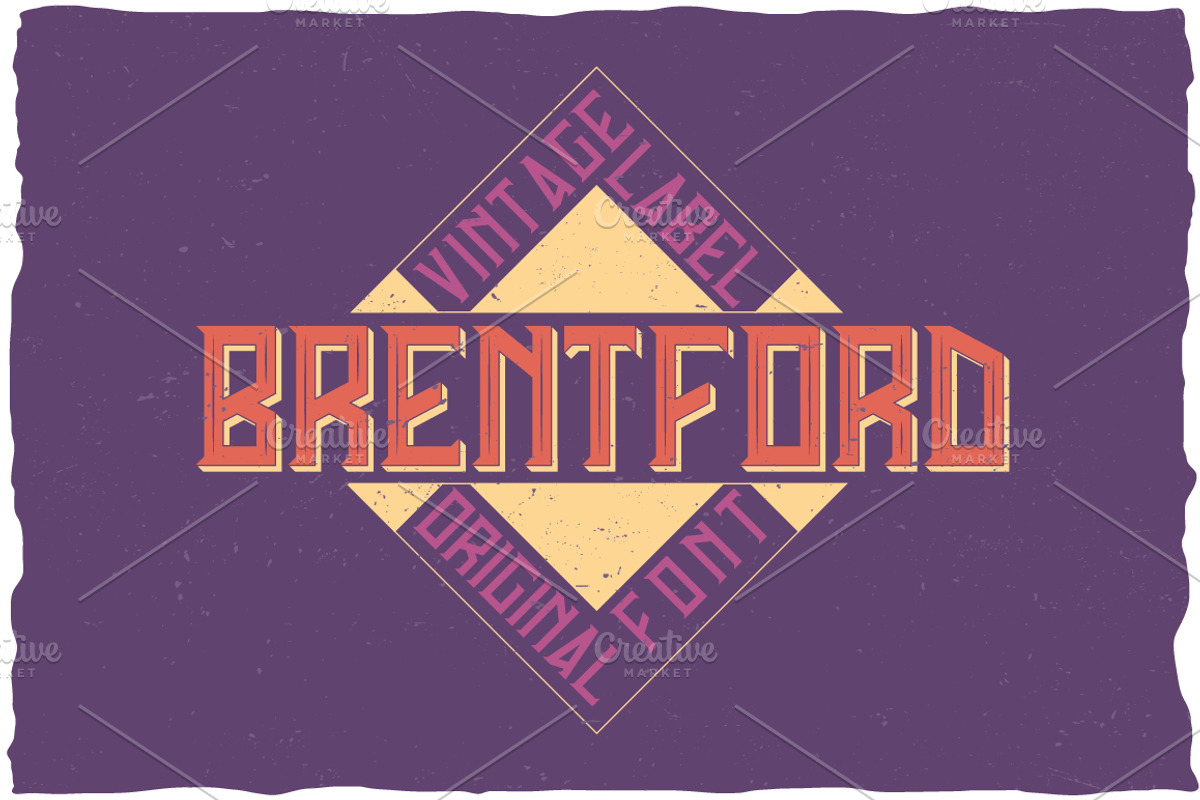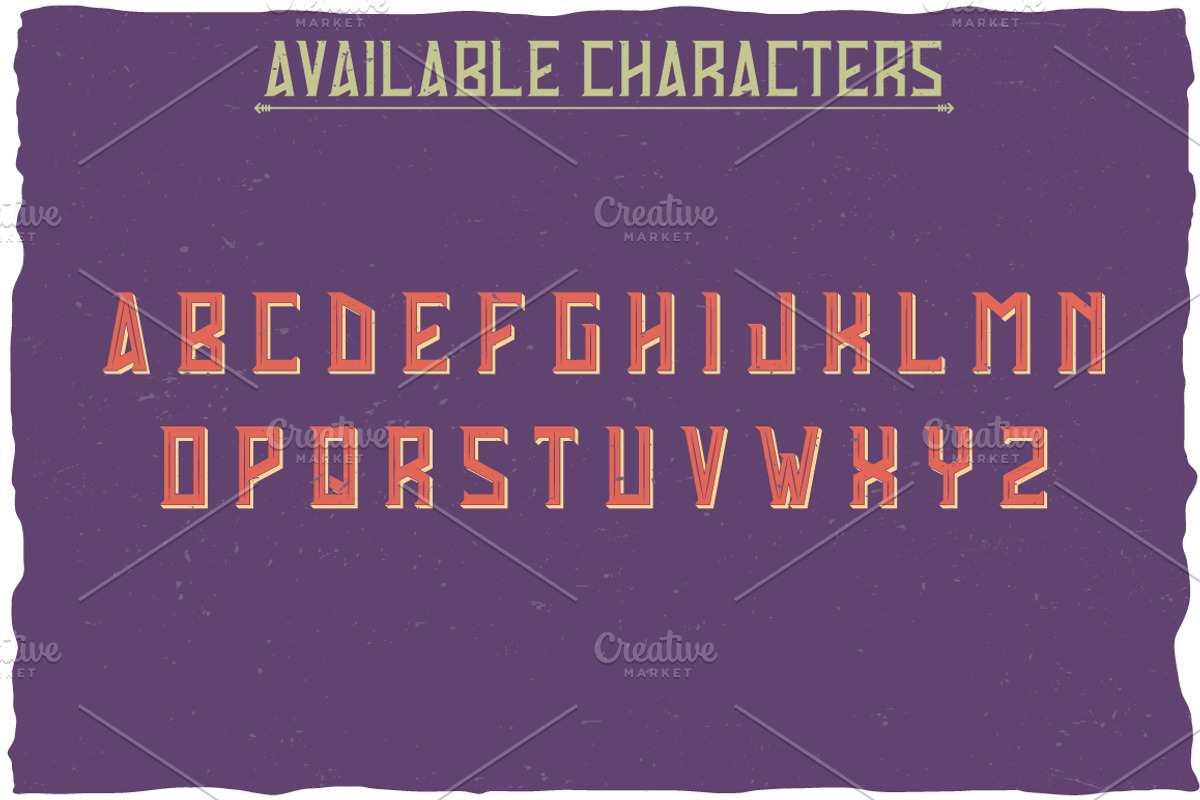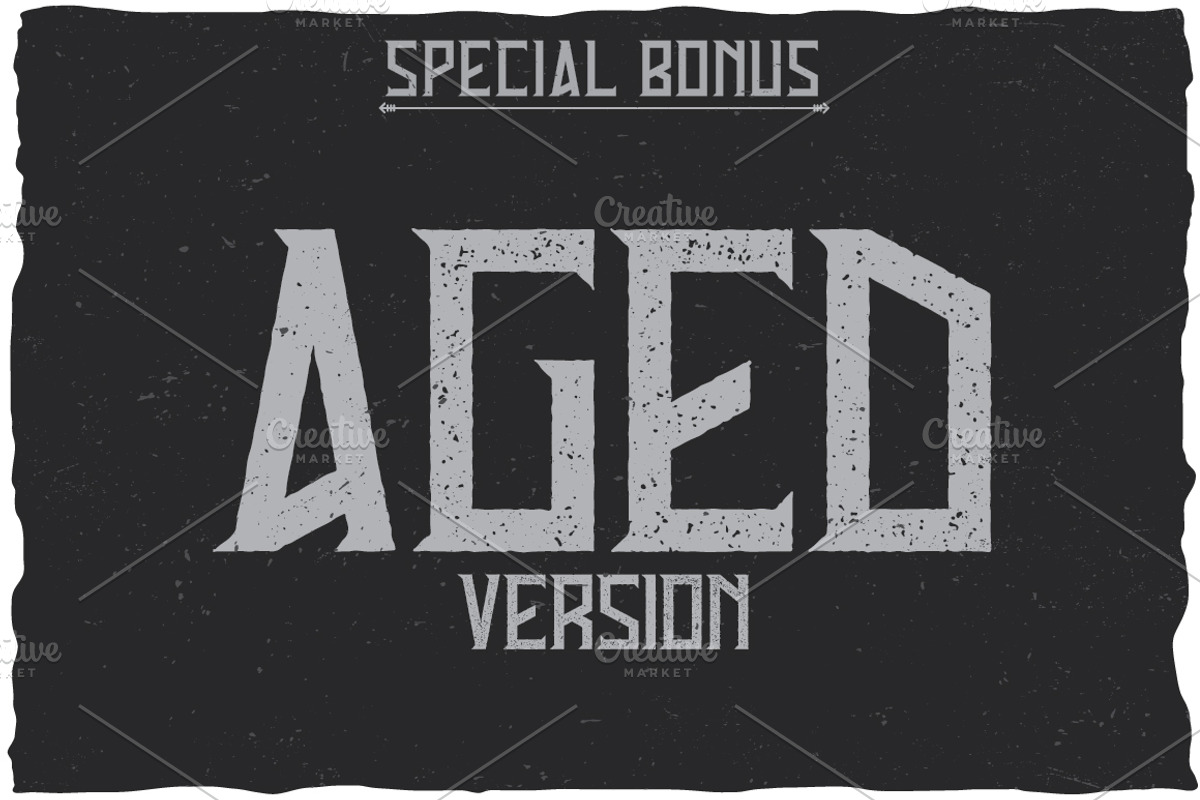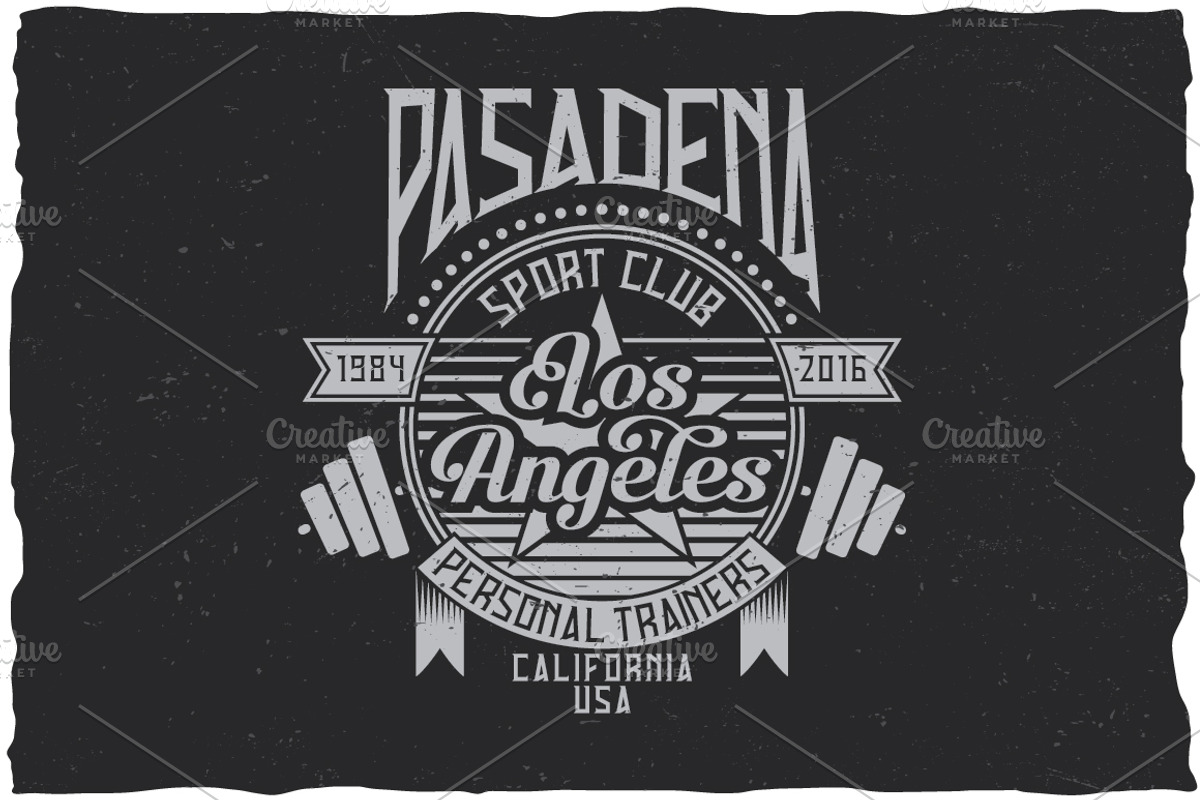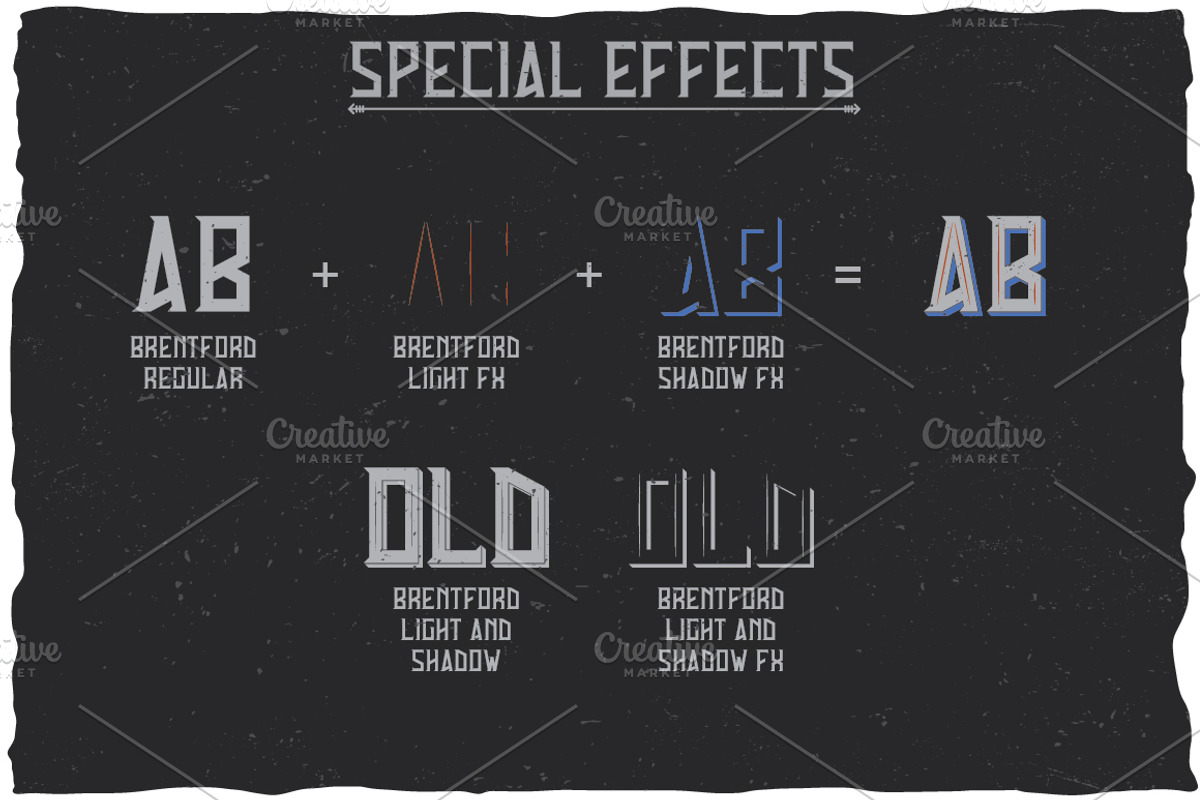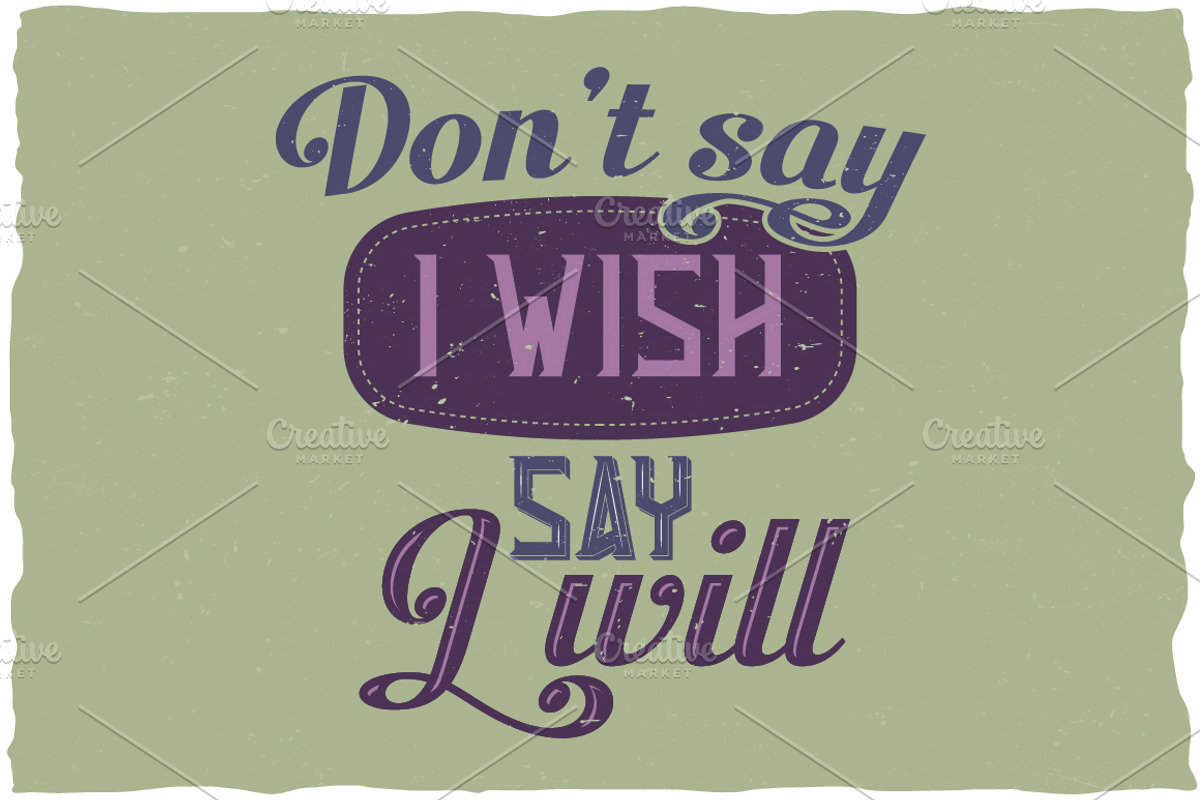
Here is a classic look label typeface named "Brentford". It's made in vintage label style. Font is perfect for any labels design.
- 6 styles of font, named Brentford Aged, Brentford Light And Shadow, Brentford Light And Shadow FX, Brentford Light FX, Brentford Regular, Brentford Shadow FX.
- You can mix these styles how do you like. Because in complect are included additional fonts - Brentford Light And Shadow FX, Brentford Light FX, Brentford Shadow FX. For example: type your phrase in Regular, copy and past at same position and change font to Shadow FX. Copy and paste at the same position and change font to Light FX. You will get Brentford font with shadow and light effect! And you can change color of each element!